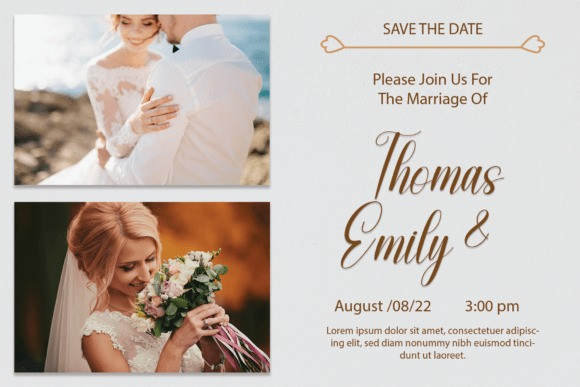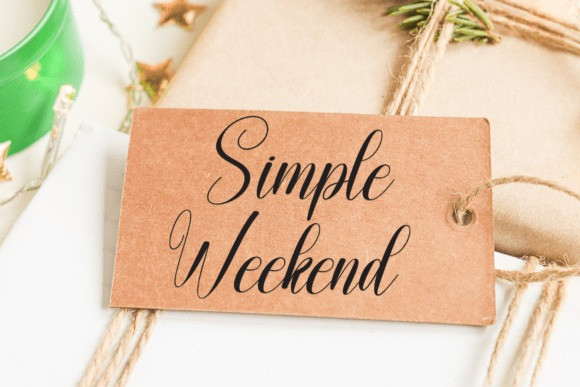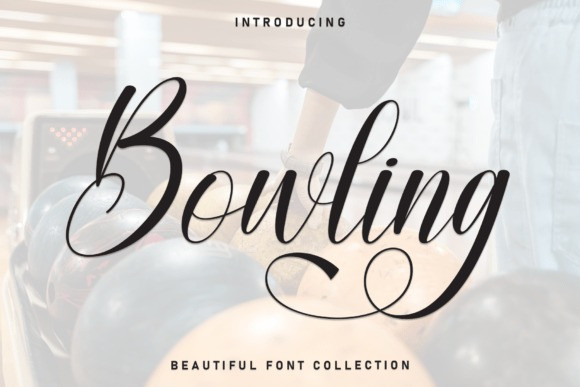
Bowling Script Typeface
Bowling Script Typeface This adorable, playful font breathes life into your design, making it perfect for creating enchanting wedding invitations or delightful cards. Embrace its unique charm to add a touch of fun to any design project you undertake. Immerse yourself in the captivating appeal of this font and elevate your creativity to new heights.